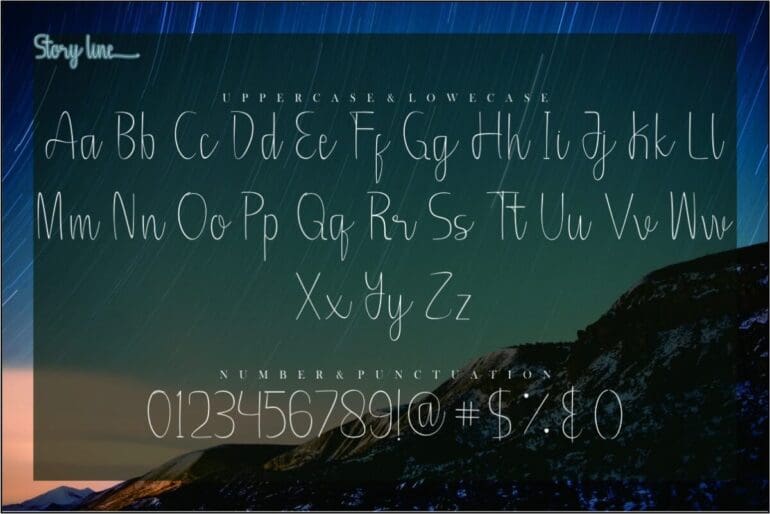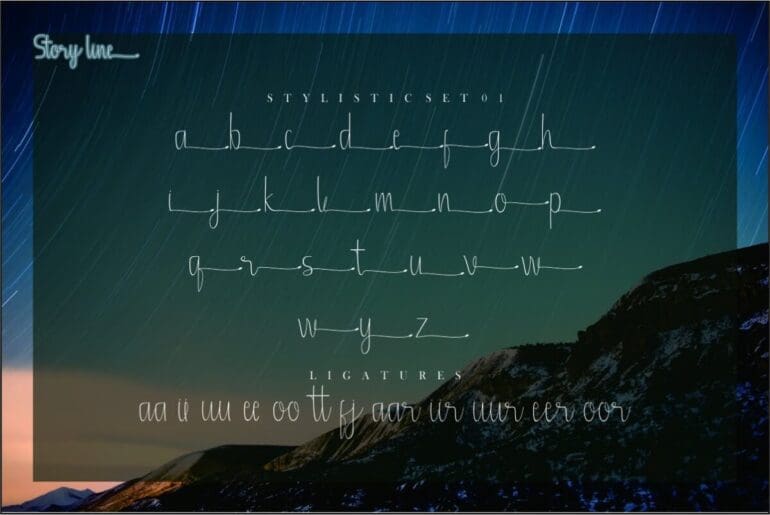
Story line Font
Story line is a carefully crafted neat script font with an elegant touch. Whether you’re looking for fonts for logos, branding, social media posts, weddings, packaging etc. for DIY projects, these fonts will turn any creative idea into a true work of art!